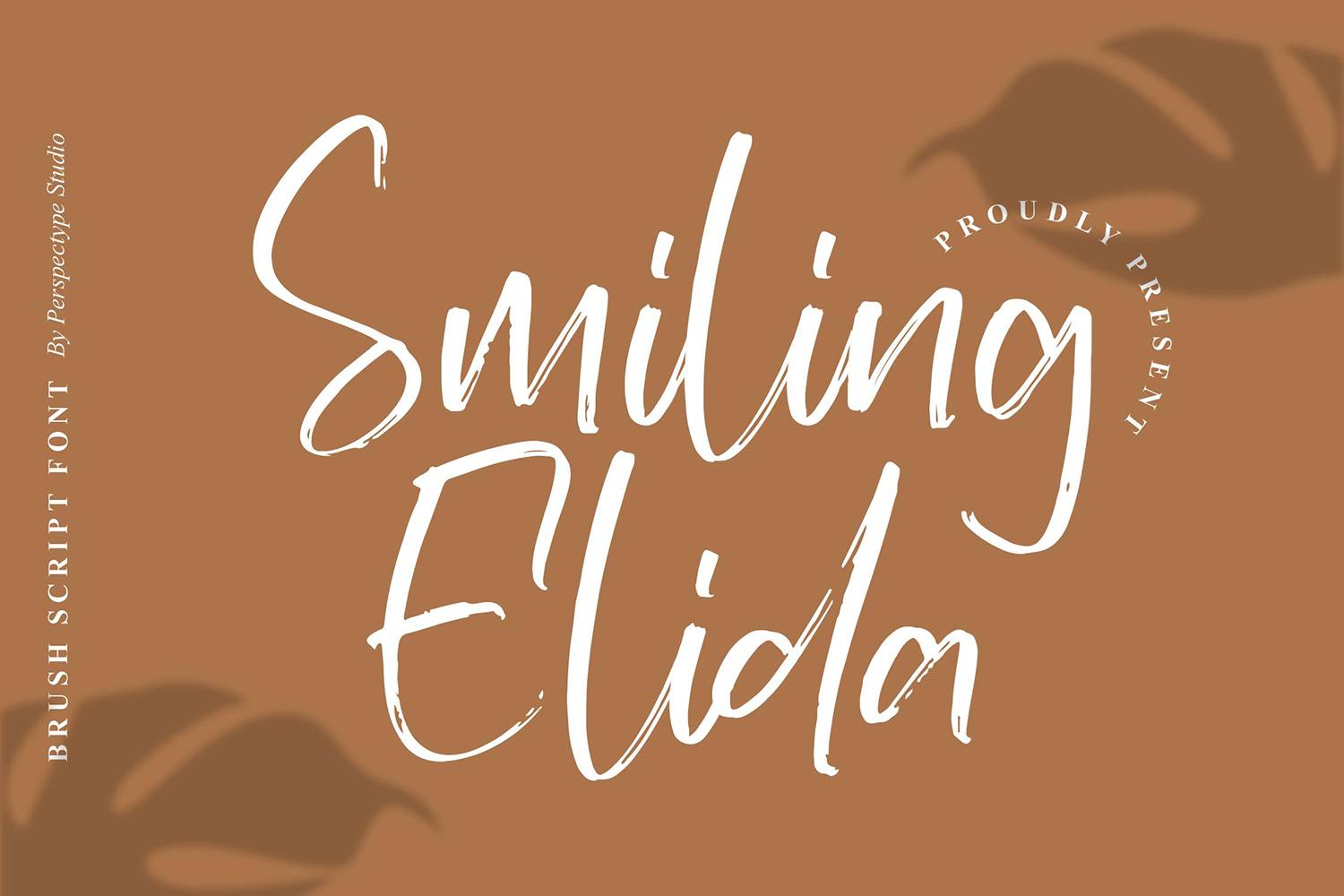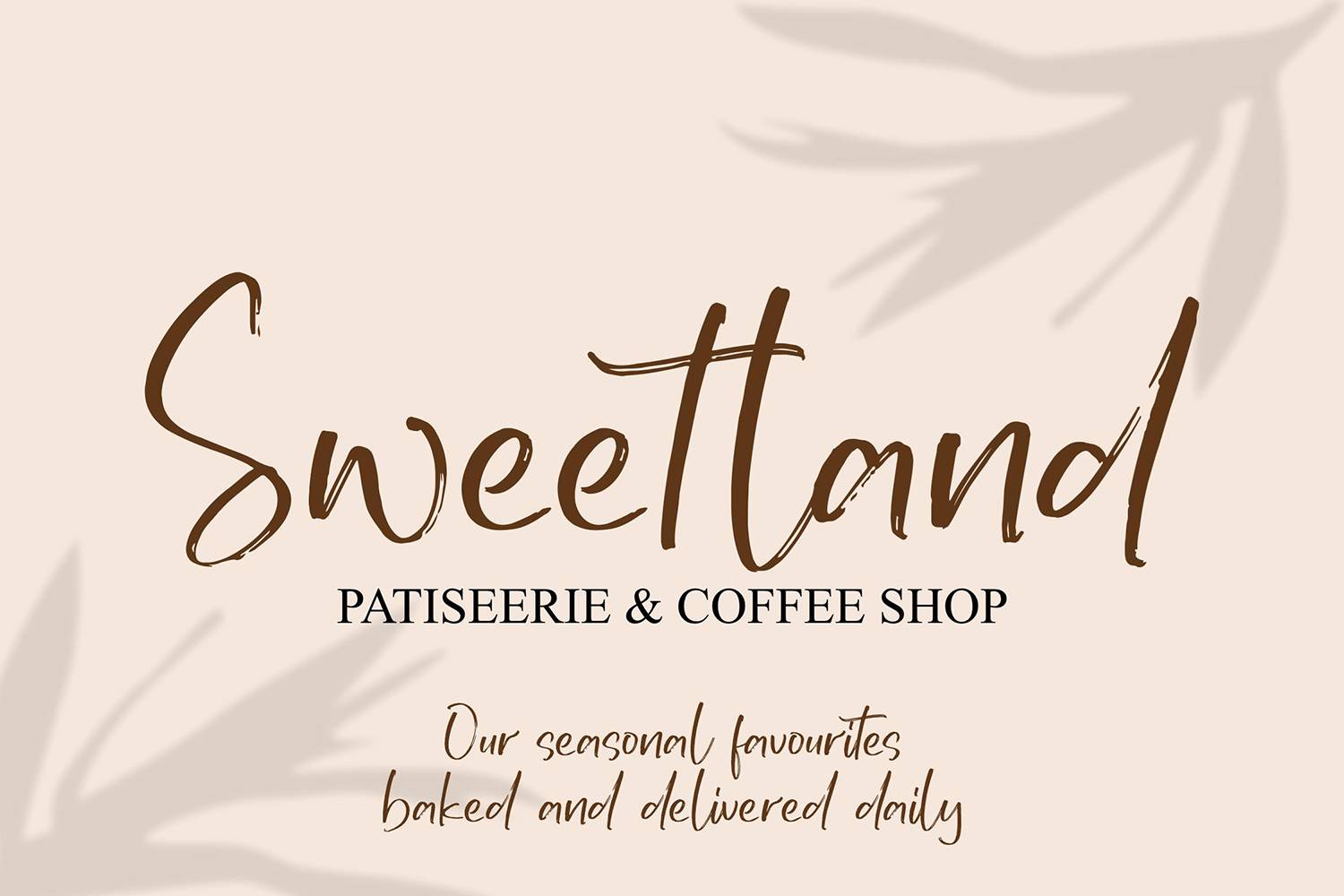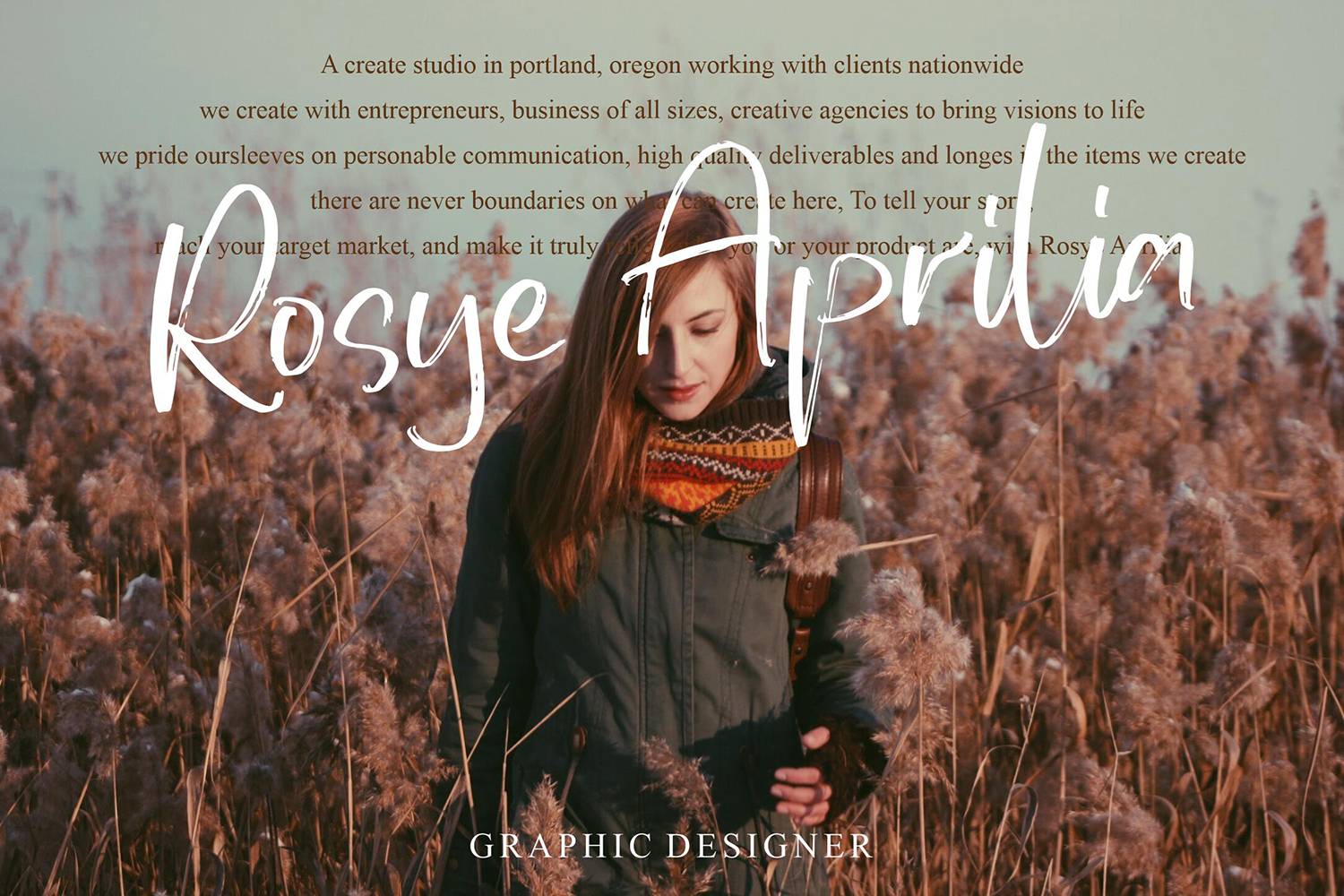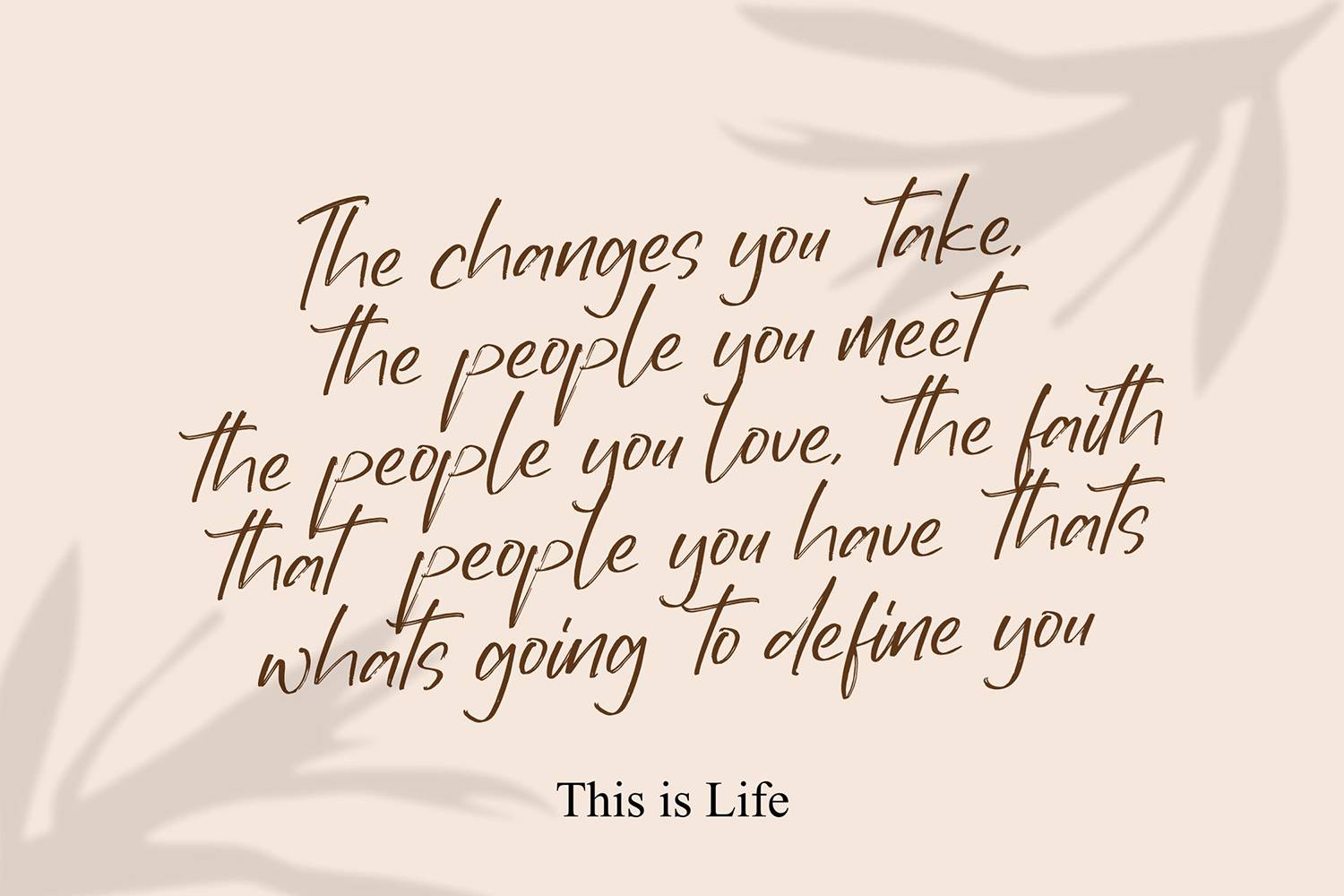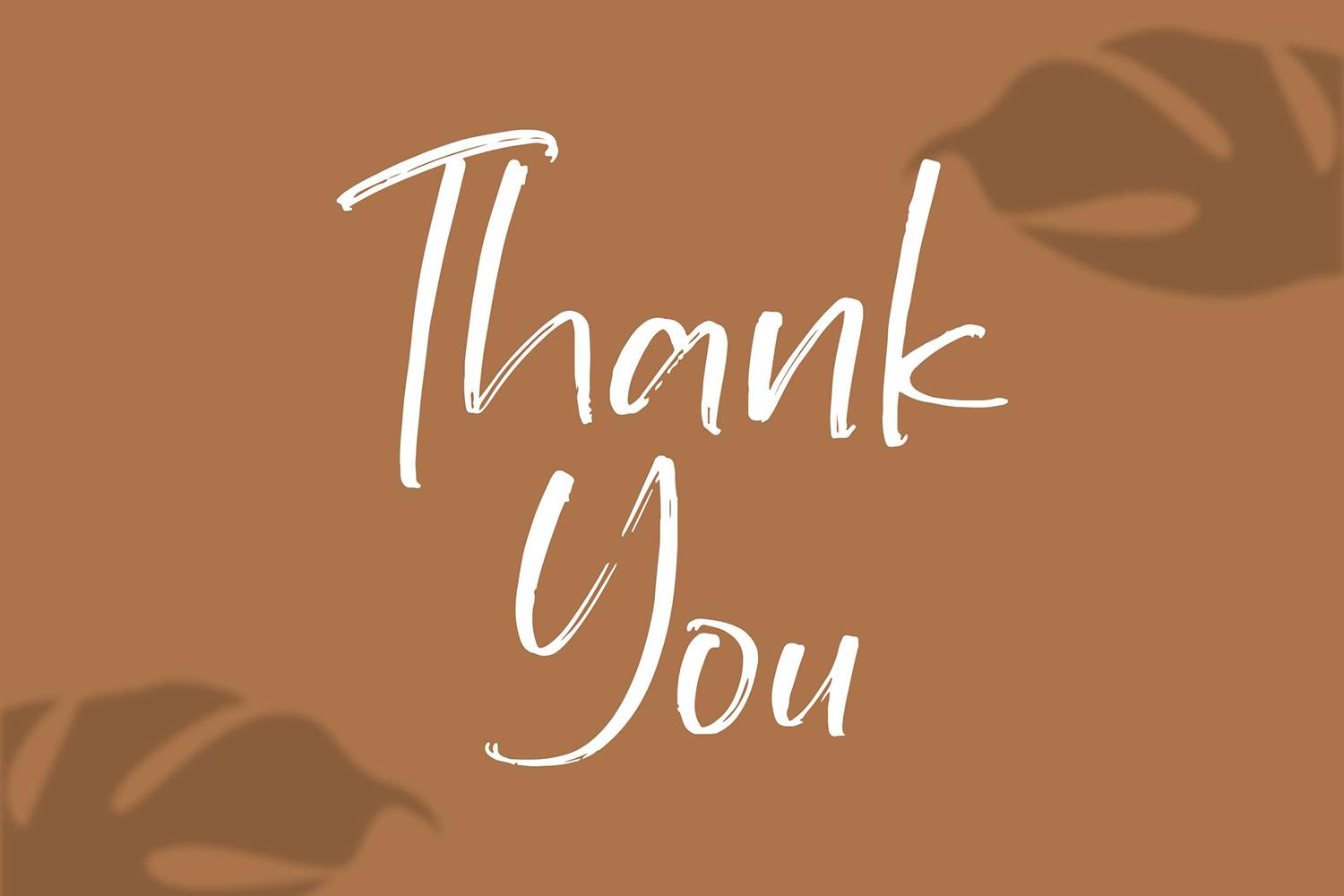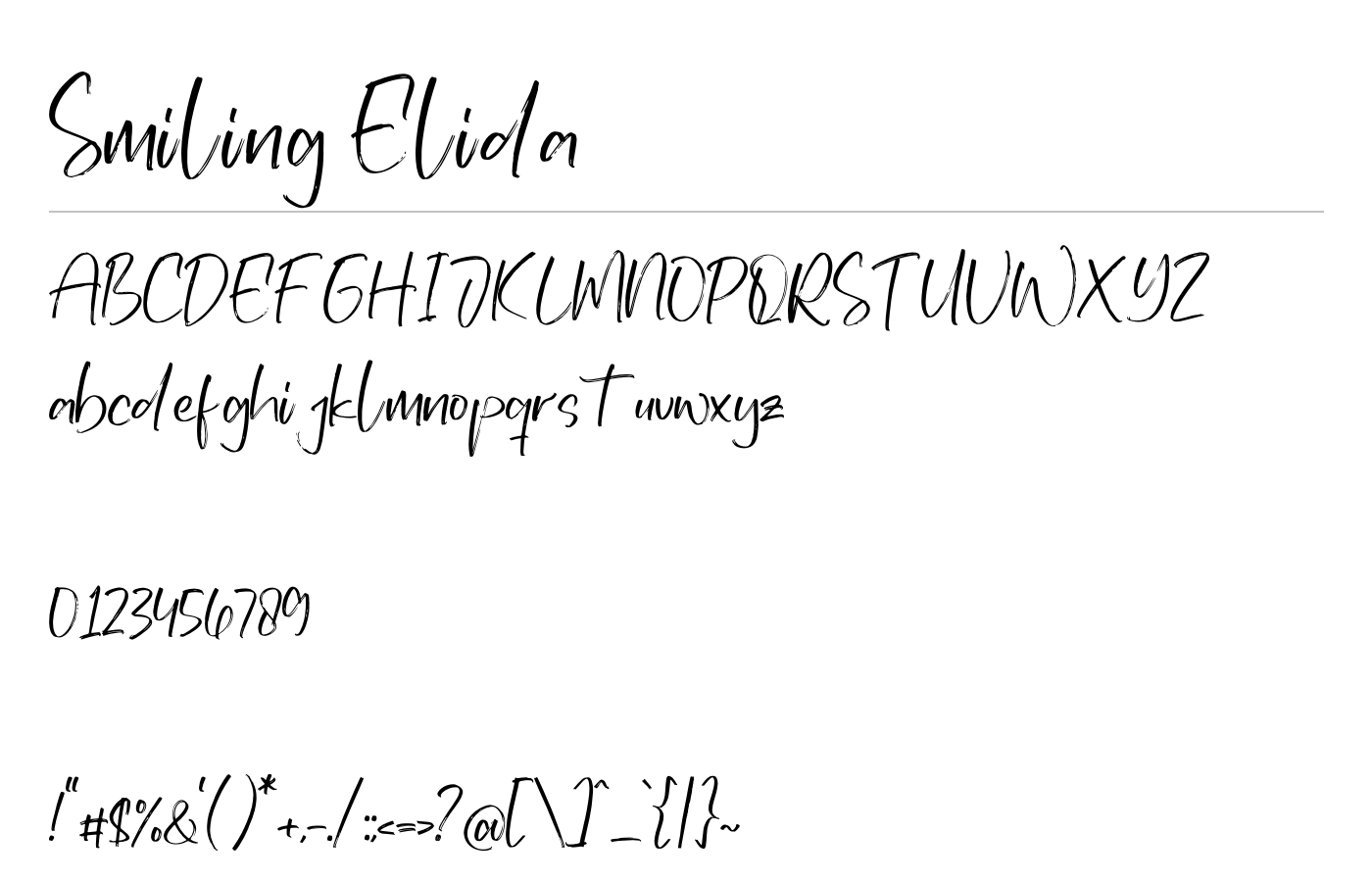
Smiling Elida is a playful and expressive handwritten script font with a casual, brush-like texture that feels personal and artistic. Its tall, slender letterforms, lively irregular strokes, and slightly rough edges give it a friendly, informal character ideal for creative projects, invitations, and branding that seeks a warm, approachable vibe. This font shines best in headlines, logos, and packaging where a unique, handcrafted touch is desired.
Smiling Elida Font
About Smiling Elida Font